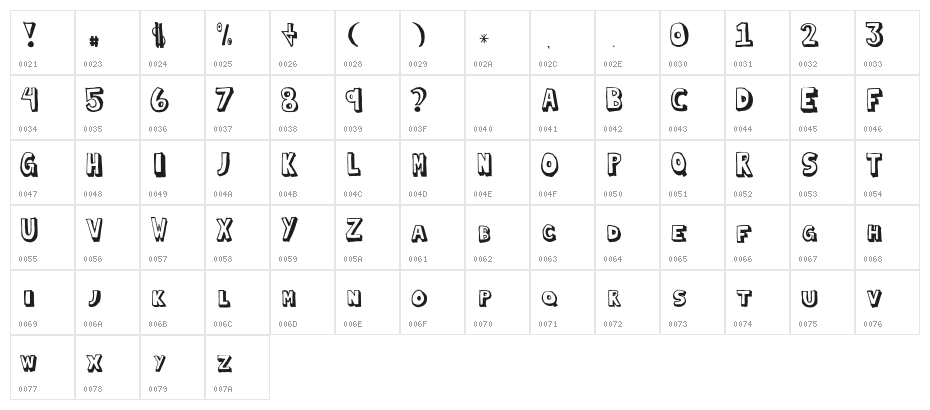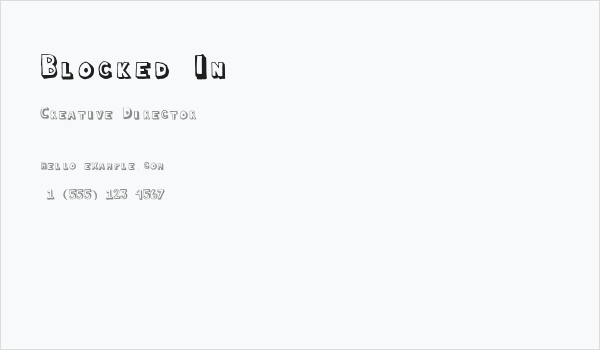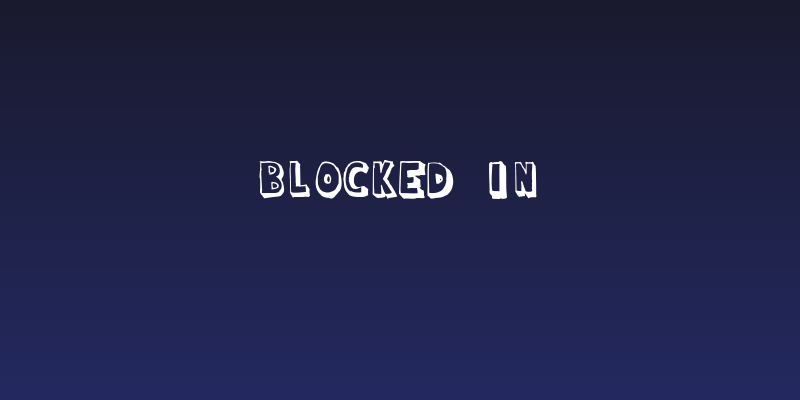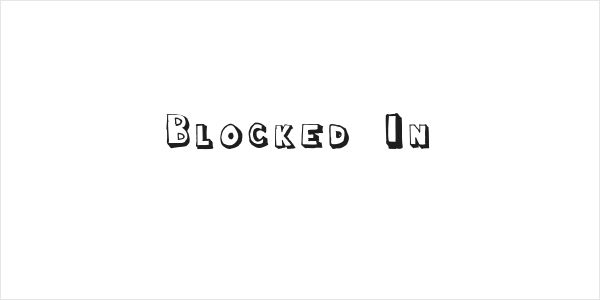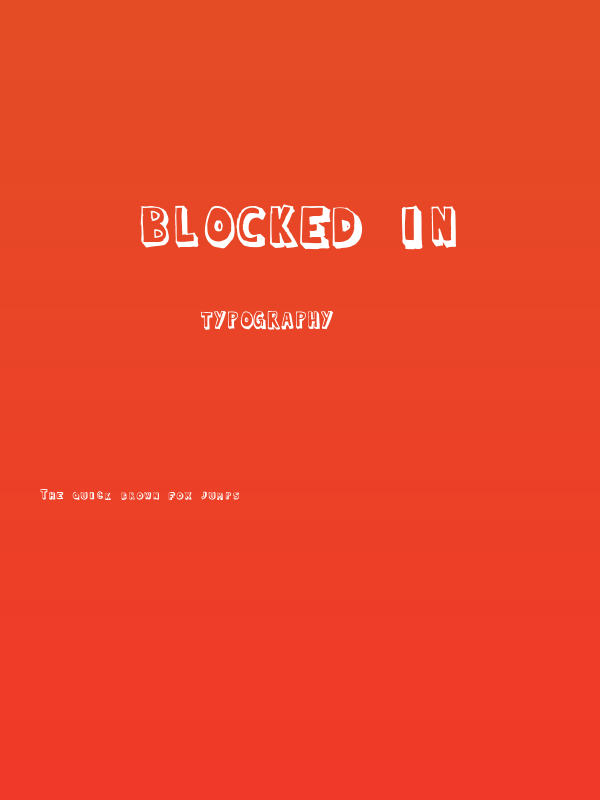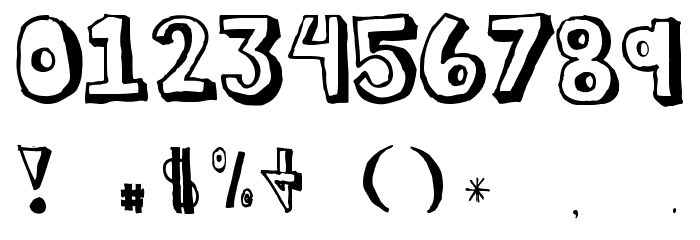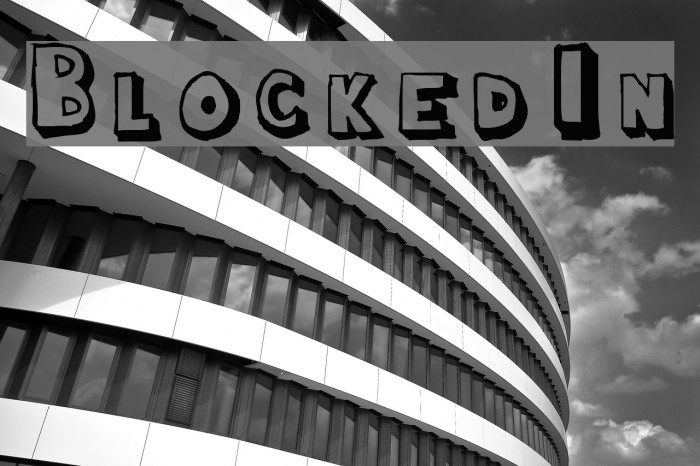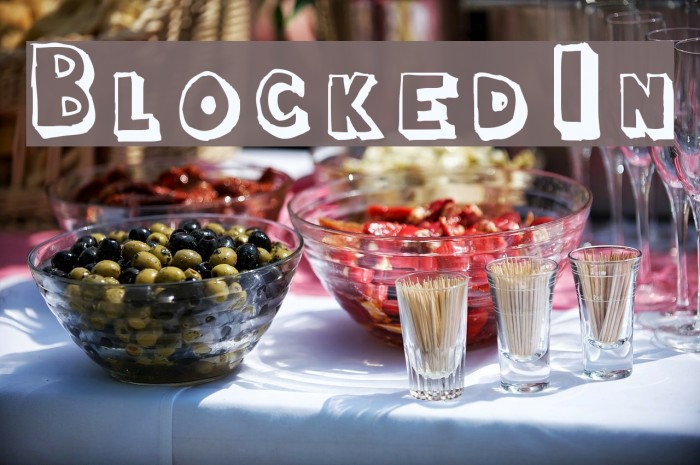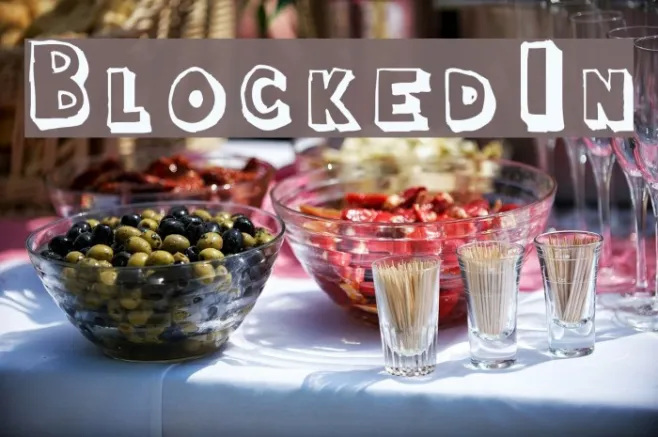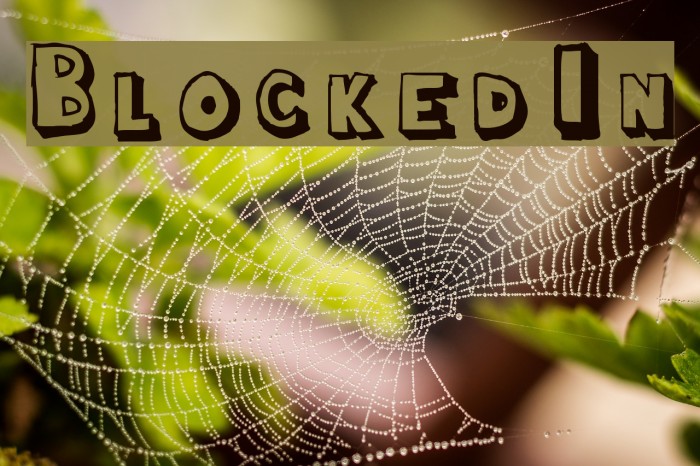
Blocked In Font
Blocked In Description
This font features a bold, playful style with a three-dimensional effect that gives each character a shadowed appearance. The letters are uppercase and lowercase, with a slightly irregular, hand-drawn quality that adds to its whimsical charm. The numbers and special characters maintain this playful aesthetic, making the font suitable for creative and informal designs. The bold strokes and shadowing create a sense of depth, making it stand out in any design project.
| Use Case | Headlines, Posters, Branding |
| Proposed Projects | Ideal for children's book covers, comic strips, playful branding, and eye-catching posters. |